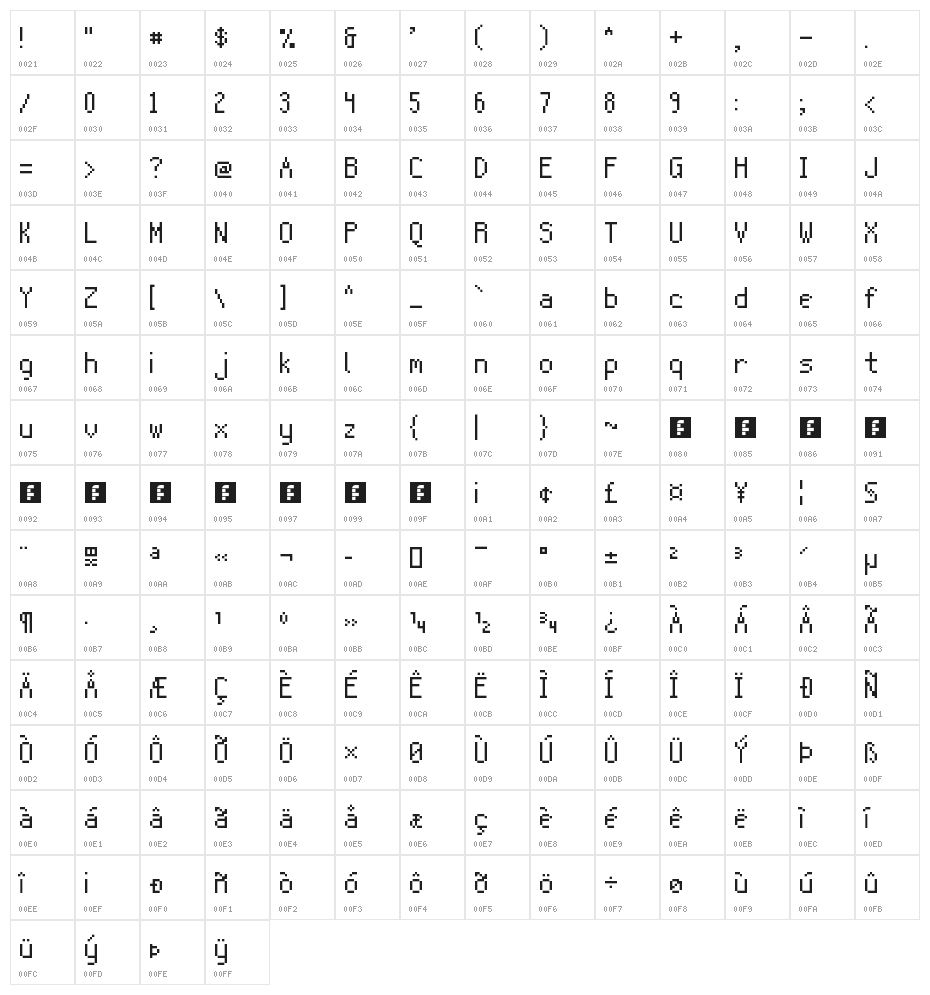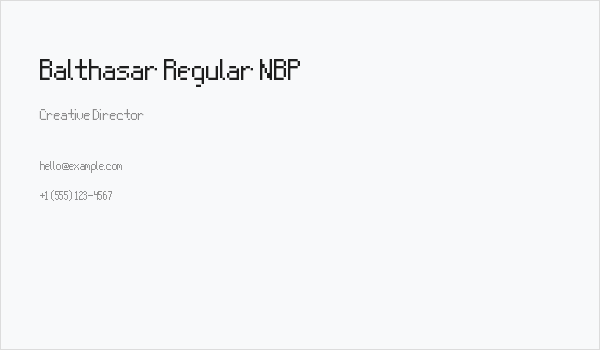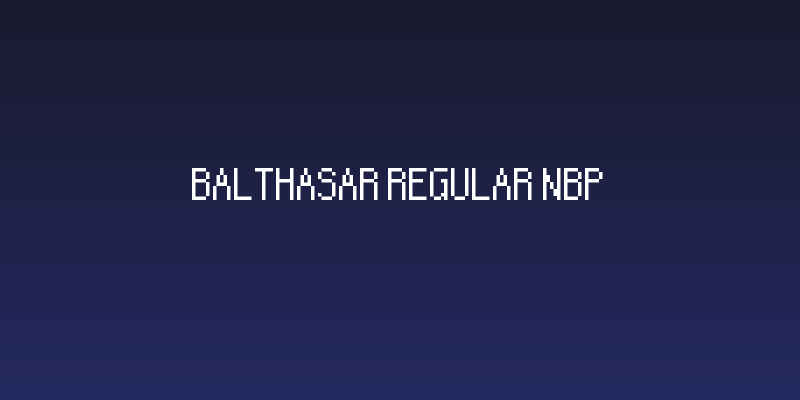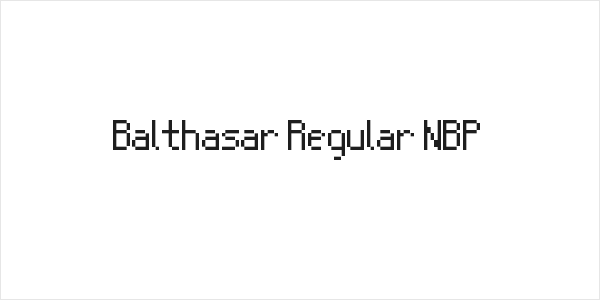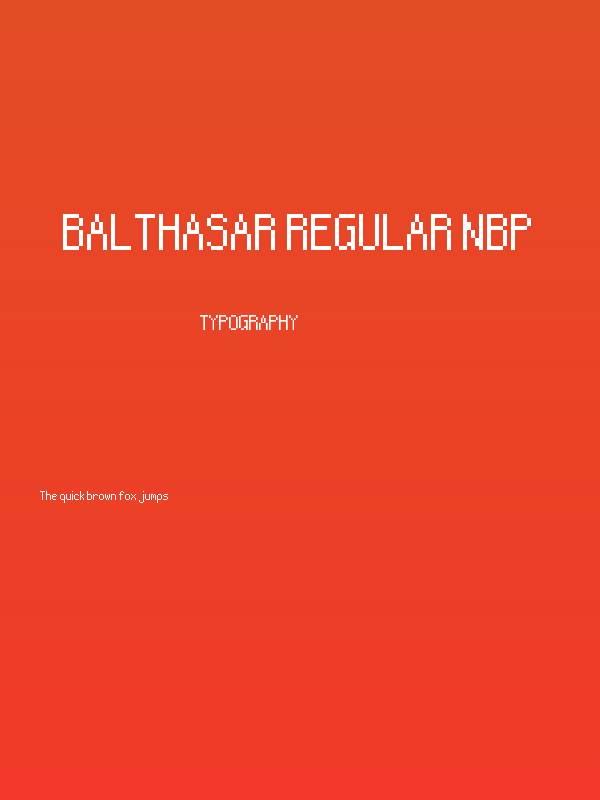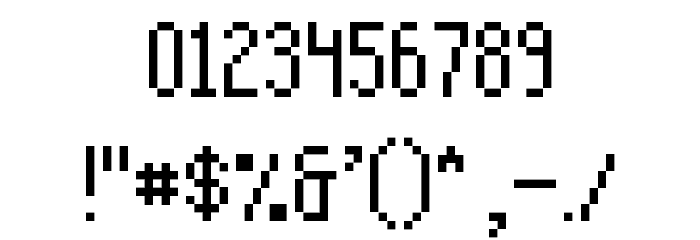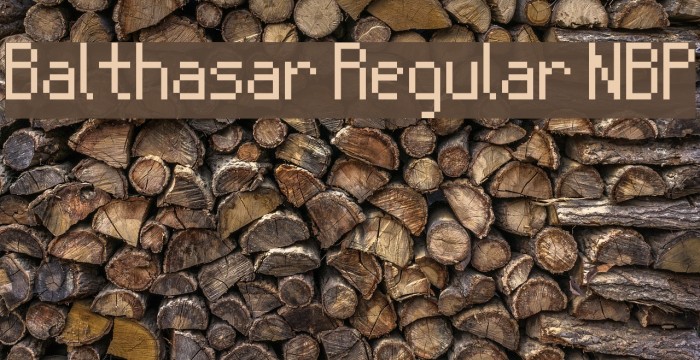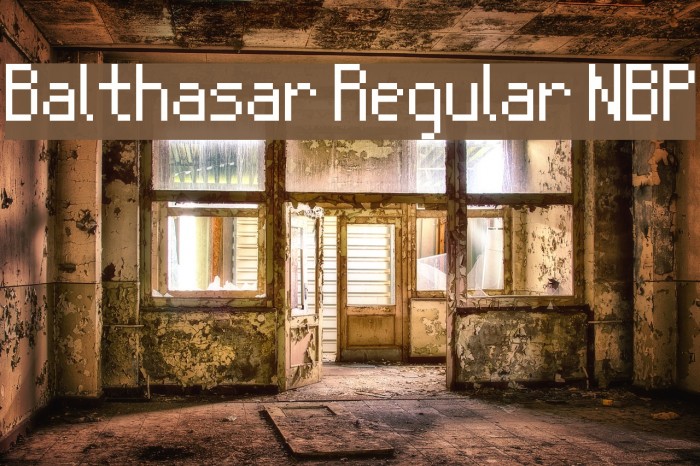
Balthasar Regular NBP Font
Balthasar Regular NBP Description
This font features a pixelated, blocky style reminiscent of early digital and video game typography. Each character is constructed with a grid-like precision, giving it a distinctly retro and digital aesthetic. The uppercase and lowercase letters maintain a consistent height and width, contributing to a uniform appearance. The numerals and special characters follow the same design principles, ensuring visual cohesion across all characters. This font's simplicity and clarity make it highly legible, even at smaller sizes, while its unique style adds a nostalgic charm.
| Use Case | Logos, Digital art, Video game design |
| Proposed Projects | Ideal for retro video game designs, digital art projects, and any creative work that seeks to evoke a sense of nostalgia for early computing and gaming eras. |